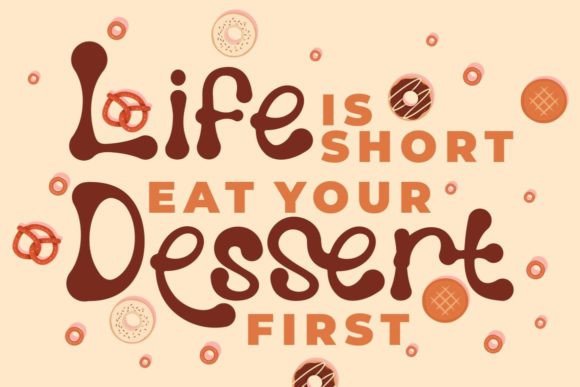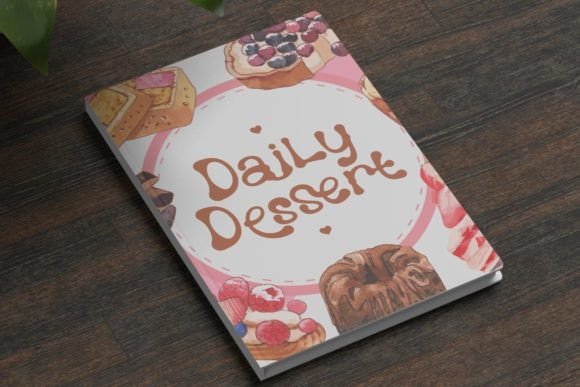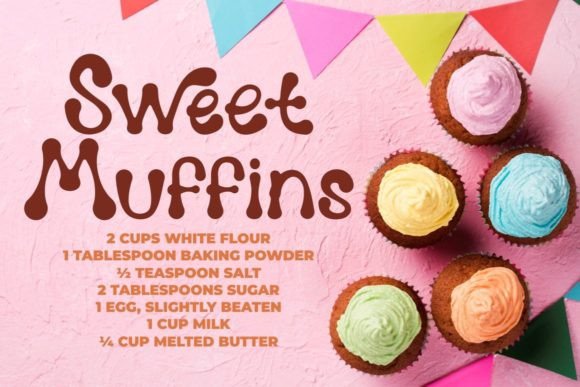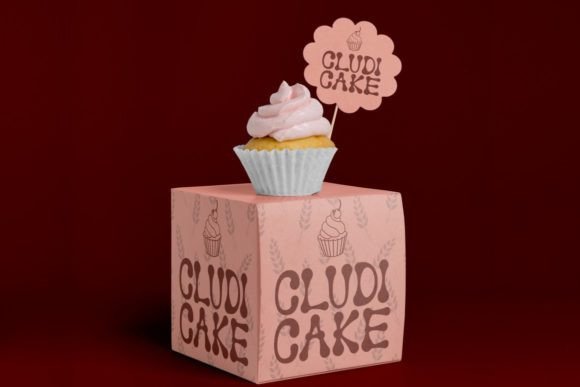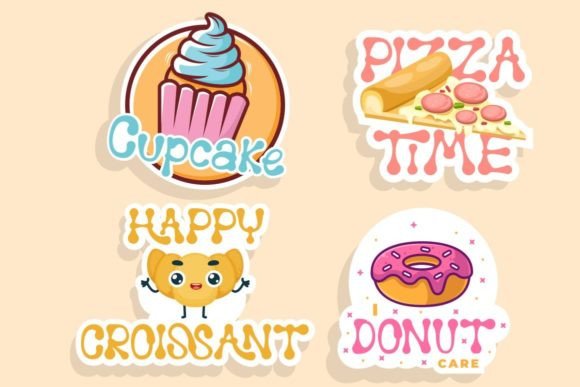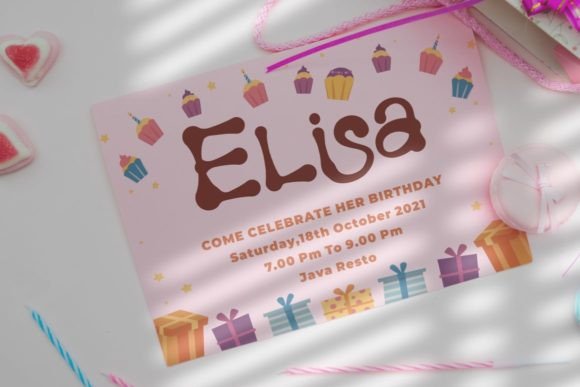
Introduction to Melting Dessert Font
Melting Dessert is a fun and delicious display font.
Its friendly and cute vibe and casual style are perfect for creating whimsical, unique designs This font is PUA encoded which means you can access all the glyphs and ligatures with ease.
Key Features of Melting Dessert Font
Why Choose Melting Dessert Font?